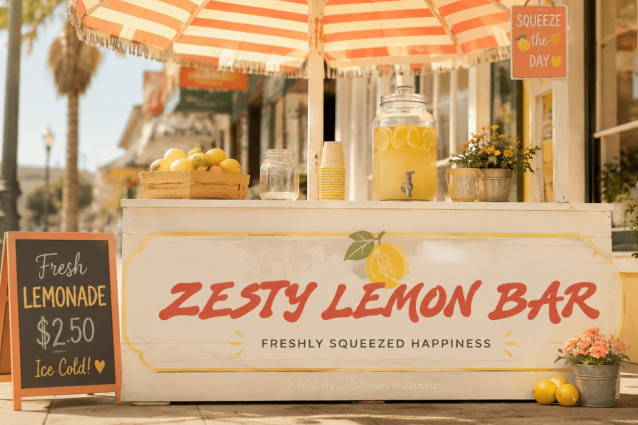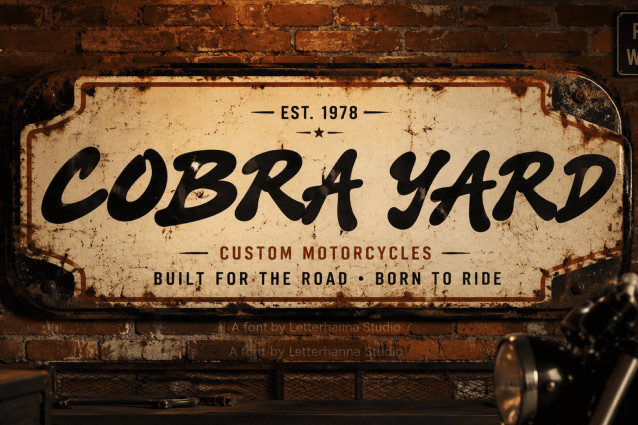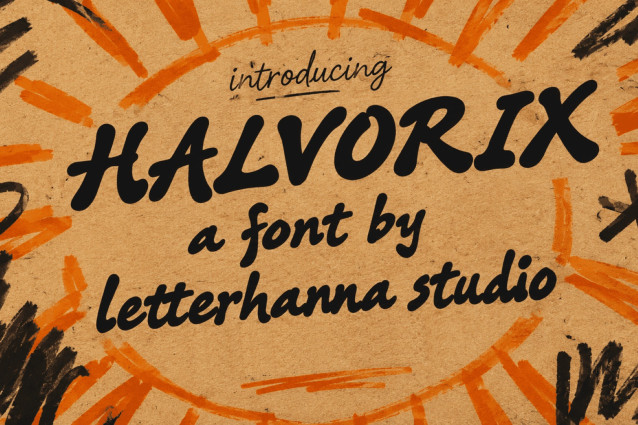
Halvorix Font
Halvorix: A Playful Font Built for Bold Kids & Logo Design
There’s a specific kind of frustration that hits when you’re three hours into a font search and still haven’t found “the one.” You know the feeling — every option is either too safe or too silly, and your brand still doesn’t sound like itself.
At first glance, it looks like a simple hand-marker font. But look closer at the lowercase letters — they’re rounded, loose, and drawn with the kind of confidence that only comes from moving fast and not overthinking it. Nothing here feels copy-pasted from a template.
Halvorix hands you that tone immediately — loud when the moment calls for it, warm when it doesn’t, and never stiff in between.
Try Halvorix on your next logo, label, or packaging concept, and watch a plain layout turn into something people actually remember.